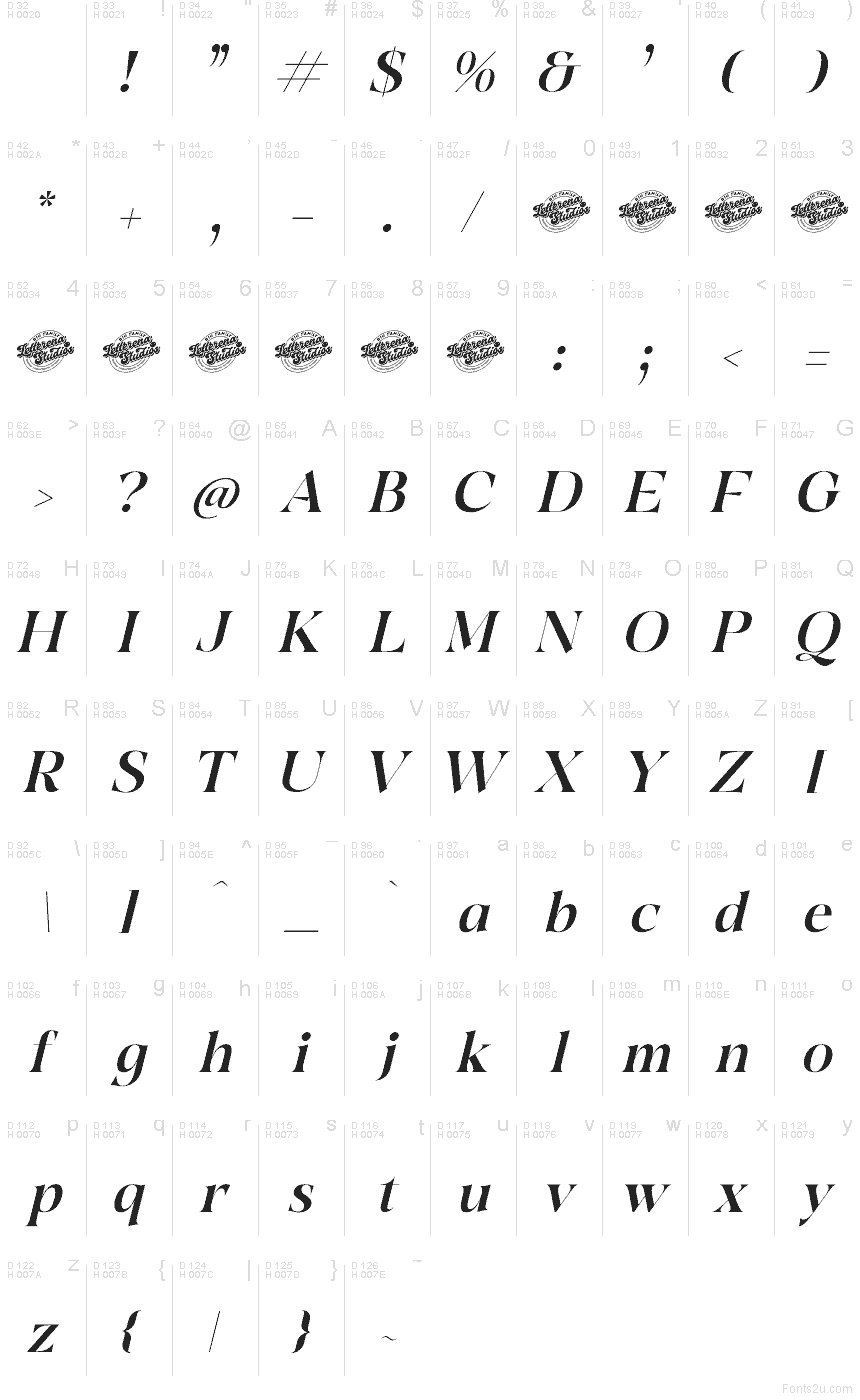
Quilge DEMO VERSION Italic
Quilge Italic font by Letterena Studios is a free serif typeface that turns every word into a flourish. Its sweeping strokes, razor-sharp edges, and swooping entry curves feel like a brush dipped in inky black, frozen mid-motion. Letters lean forward with a confident, editorial slant, while the generous, sculpted curves give the Quilge family a luxurious, almost perfume-label elegance.
Using Quilge Italic, headlines gain a dramatic, fashion-magazine presence, and logos suddenly feel more bespoke. This free font works beautifully for beauty branding, packaging, book covers, wedding stationery, posters, and social media graphics where you want drama without losing readability. Pair Quilge Italic with a clean geometric sans in smaller text and let Quilge handle the big, attention-grabbing words.